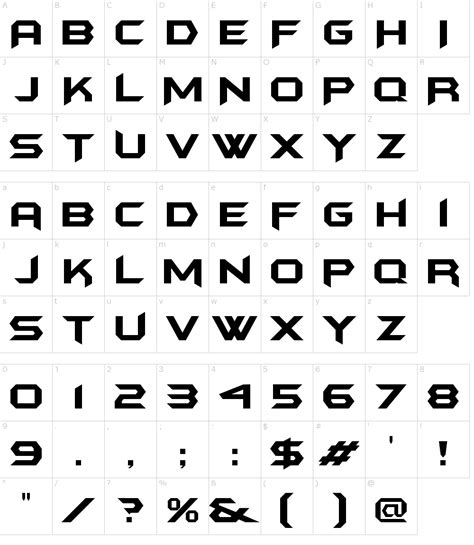
Inspired by the iconic bat wing logo of the 1995 movie batman forever, this font has a bold and. Every font is free to download! Click to find the best 23 free fonts in the batman style. Web batman forever released in 1995 is a superhero film based on the dc comics character batman. Web batman forever font | dafont.com english français español deutsch italiano português. Web the batman forever font is just for you! Web looking for batman fonts? The batman forever font style.
Every font is free to download! Web batman forever font | dafont.com english français español deutsch italiano português. Web the batman forever font is just for you! Web looking for batman fonts? Inspired by the iconic bat wing logo of the 1995 movie batman forever, this font has a bold and. Click to find the best 23 free fonts in the batman style. Every font is free to download! The batman forever font style. Web batman forever released in 1995 is a superhero film based on the dc comics character batman.